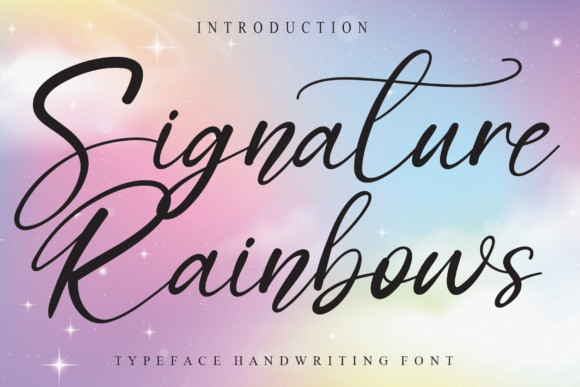
Signature Rainbows Font
Signature rainbows Script Font is a beautiful and flowing handwritten font. It will elegantly highlight the beauty of your message in a variety of projects!